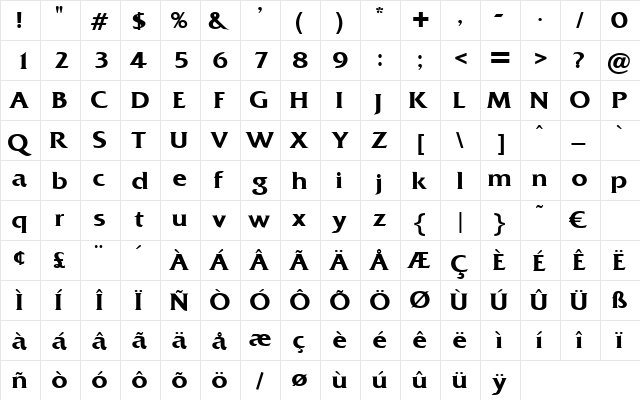
Silver Regular
Design Context for Silver Typeface
Silver takes a measured approach to typography — its balanced proportions and neutral character make it a reliable workhorse for both digital and print work.